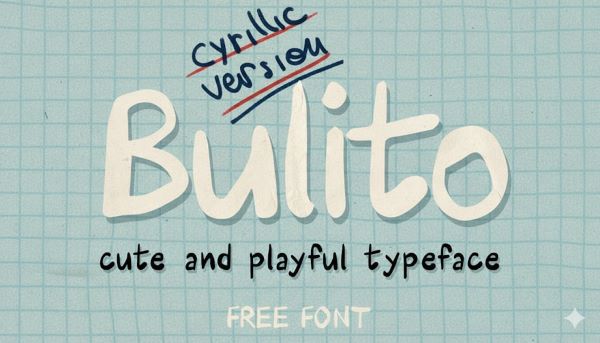
Bulito Font
Bulito Font is a playful display typeface featuring rounded shapes and a cheerful, friendly personality. It is suitable for children’s content, branding, packaging, posters, and social media graphics that require a warm and engaging visual tone. Its bold, approachable styling helps designs stand out, making it a fun and expressive choice within colorful and creative free fonts collections.
➤ Font Name: Bulito
➤ Designer: Andrijana St.
➤ Style: Handwritten